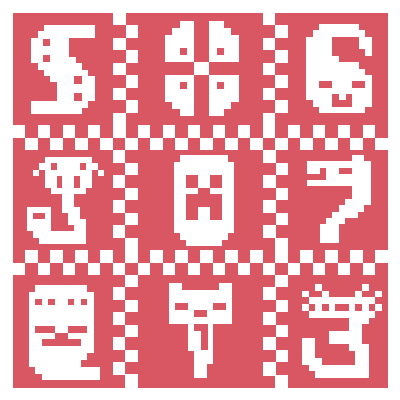
Ostrakon Font
A font designed with familiar mob faces and shapes as characters perfect for Halloween themes.
This fontpack adds a bold font with some familiar mob heads as letters.
It's bold and it's comic reminiscent!!